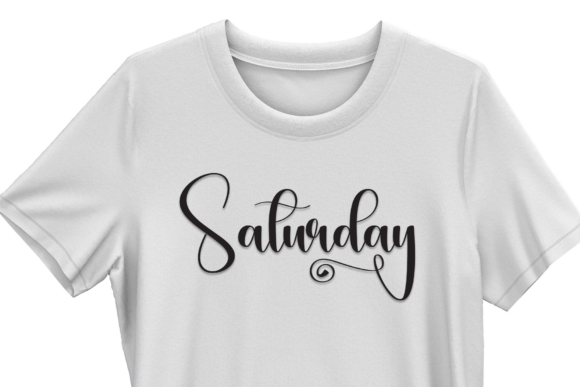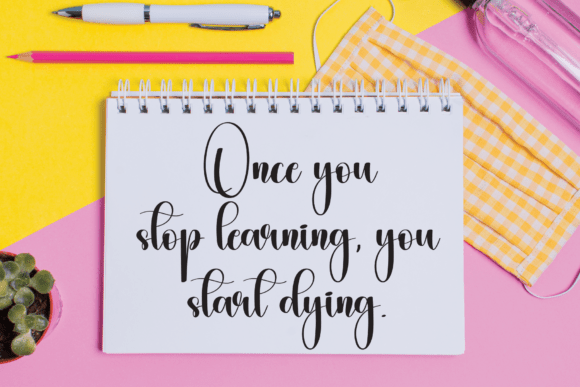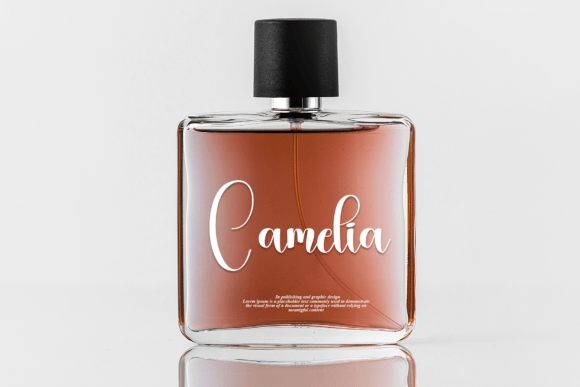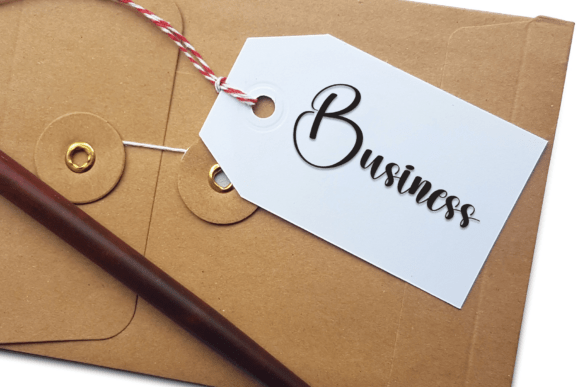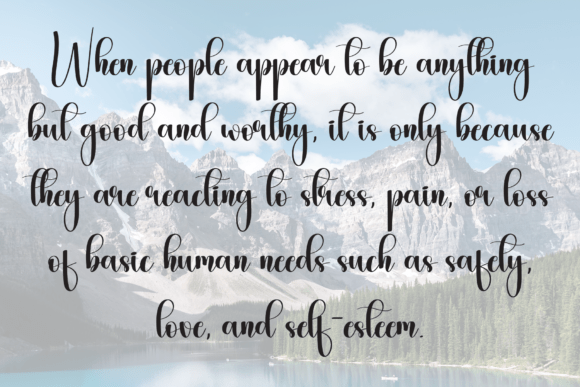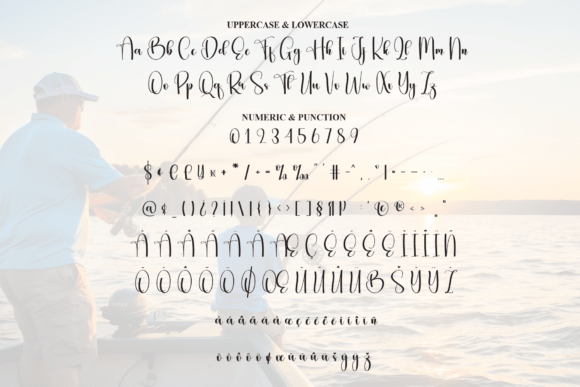
The Catch: Unleashing the Creative Potential of Fishing Font
I’ll never forget the design project that led me to discover Fishing Font. I was working on a branding campaign for a trendy outdoor gear company, and I needed a font that would capture the essence of adventure and sophistication. After hours of scouring font libraries and testing various options, I stumbled upon Fishing Font. Its fluid brush strokes and dynamic curves instantly resonated with the brand’s vibe, and I knew I’d found the perfect fit.
A Designer’s Delight: What I Love About Fishing Font
Fishing Font has become a go-to choice for many designers, crafters, and creative hobbyists. Here’s what makes it so special:
- ✨ Artistic flair: Fishing Font boasts a unique, hand-painted feel that adds a touch of elegance to any design.
- ✅ Contemporary sophistication: Its modern twist on traditional calligraphy makes it perfect for logos, invitations, packaging, and social media graphics.
- 💫 Expressive letterforms: The font’s dynamic curves and fluid brush strokes create a sense of movement and energy.
- 🔥 Visual impact: Fishing Font delivers both style and substance, making it ideal for designs that need to stand out.
The Not-So-Perfect Font: A Few Quirks to Consider
While Fishing Font is an excellent choice for many projects, it’s not without its limitations:
- 🤔 Limited use in body text: Due to its script nature, Fishing Font may not be the best choice for lengthy body text. It’s better suited for headings, titles, and short paragraphs.
- ⚠️ Glyph compatibility: Some glyphs or special characters might not work seamlessly with all design platforms or software.
The Story Behind Fishing Font
Fishing Font was designed with the intention of capturing the essence of hand-painted calligraphy with a modern twist. The designer aimed to create a font that would exude artistic flair and contemporary elegance, making it perfect for creative projects and designs that require a touch of sophistication.
| What makes Fishing Font unique? | Fishing Font’s fluid brush strokes, dynamic curves, and expressive letterforms give it a distinctive, hand-painted feel. |
| Is Fishing Font suitable for body text? | While Fishing Font is beautiful, it’s better suited for headings, titles, and short paragraphs due to its script nature. |